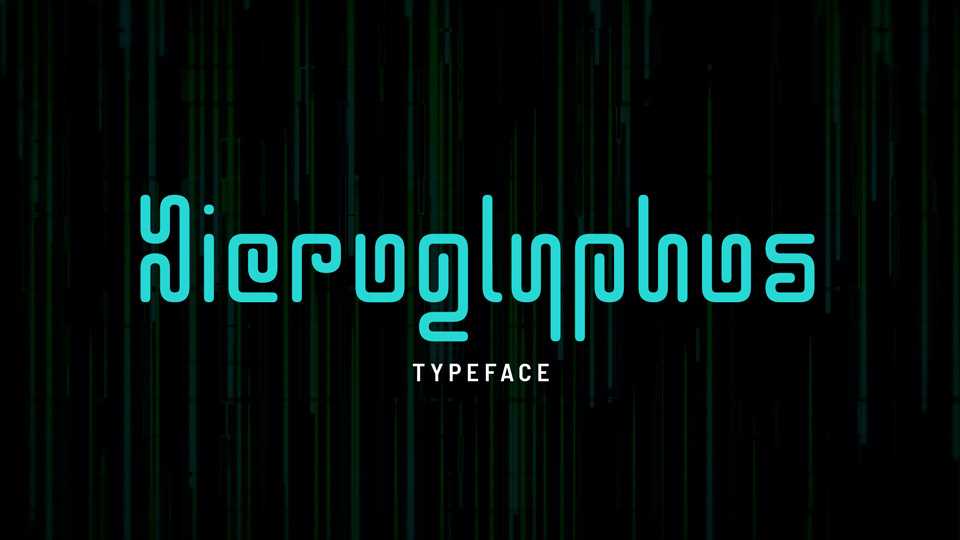
Download Hieroglyphos font, a creative single line typeface with a unique look. Hieroglyphos font is great for logos and branding, posters, short messages and other artworks.
Designer: Vít Čondák